British Standard Type co-founder Matt Fenton on designing Yinka Ilori's custom typeface
Although the two cuts of Yinka Sans differ in depth and form, they both embody Ilori's vibrant and expressive style.
British Standard Type has collaborated with British-Nigerian artist and designer Yinka Ilori MBE to design a dynamic custom display typeface in two cuts: Yinka Sans Ultra and Yinka Sans Shadow.
After using non-custom fonts for years in his work, Ilori reached out to the foundry specifically to create his own typeface. He wanted something specifically tailored to his bold, provocative, and playful work that would be compatible with his multidisciplinary practice and provide a consistent typographic identity.
"Yinka was attracted to British Standard Type for our ability to balance between sans-serifs and more expressive, playful types, aligning perfectly with his vision", says the foundry's co-founder Matt Fenton. He explains how each custom project brings "a unique opportunity to explore how type can transport, transpose, and translate meaning, adding depth to conceptual thinking".
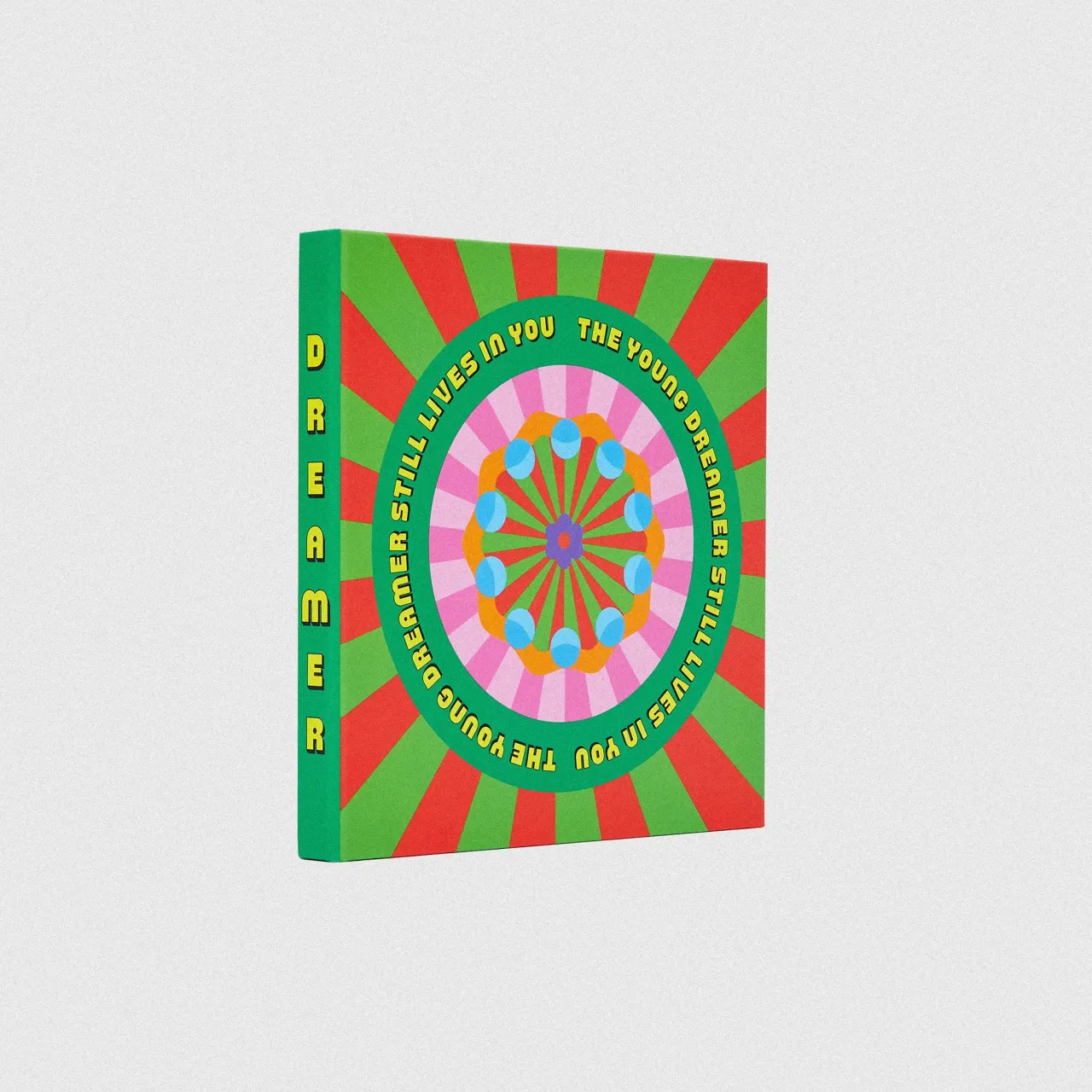
The brief for this commission called for an ownable typeface that could integrate into Yinka's existing visual language and work across various applications. The foundry was given significant creative freedom as long as the design maintained visual consistency and cohesion with Ilori's work.
The British Standard Type team relished the challenge of creating a typeface that could capture the artist's signature vibrant style and core values of inclusivity, positivity, and playfulness. Fenton says: "Yinka emphasised his desire for the typeface to tell a story, a quality intrinsic to his work.
"This resonated with us, as we are keen to explore type as a tool for conveying meaning."
The two cuts of Yinka Sans seek to mirror his passion for embracing diversity and spreading positivity through his design and were crafted to complement his bold use of colour, playful forms, and optimistic themes. "It aligns with Yinka's goal to infuse beauty, fun, and joy into the overlooked, reflecting the vibrancy and expressive nature of his visual world", says Fenton.
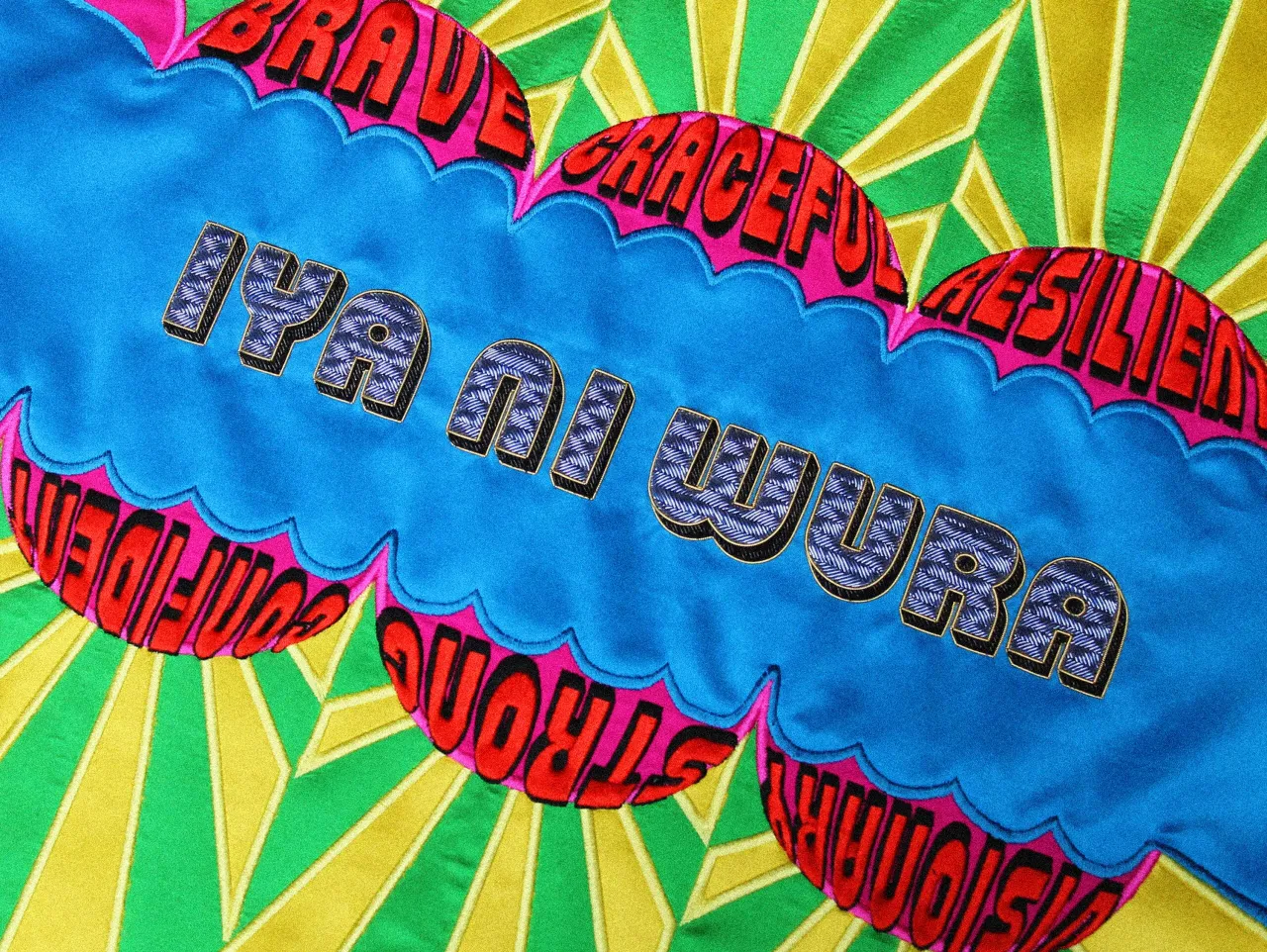
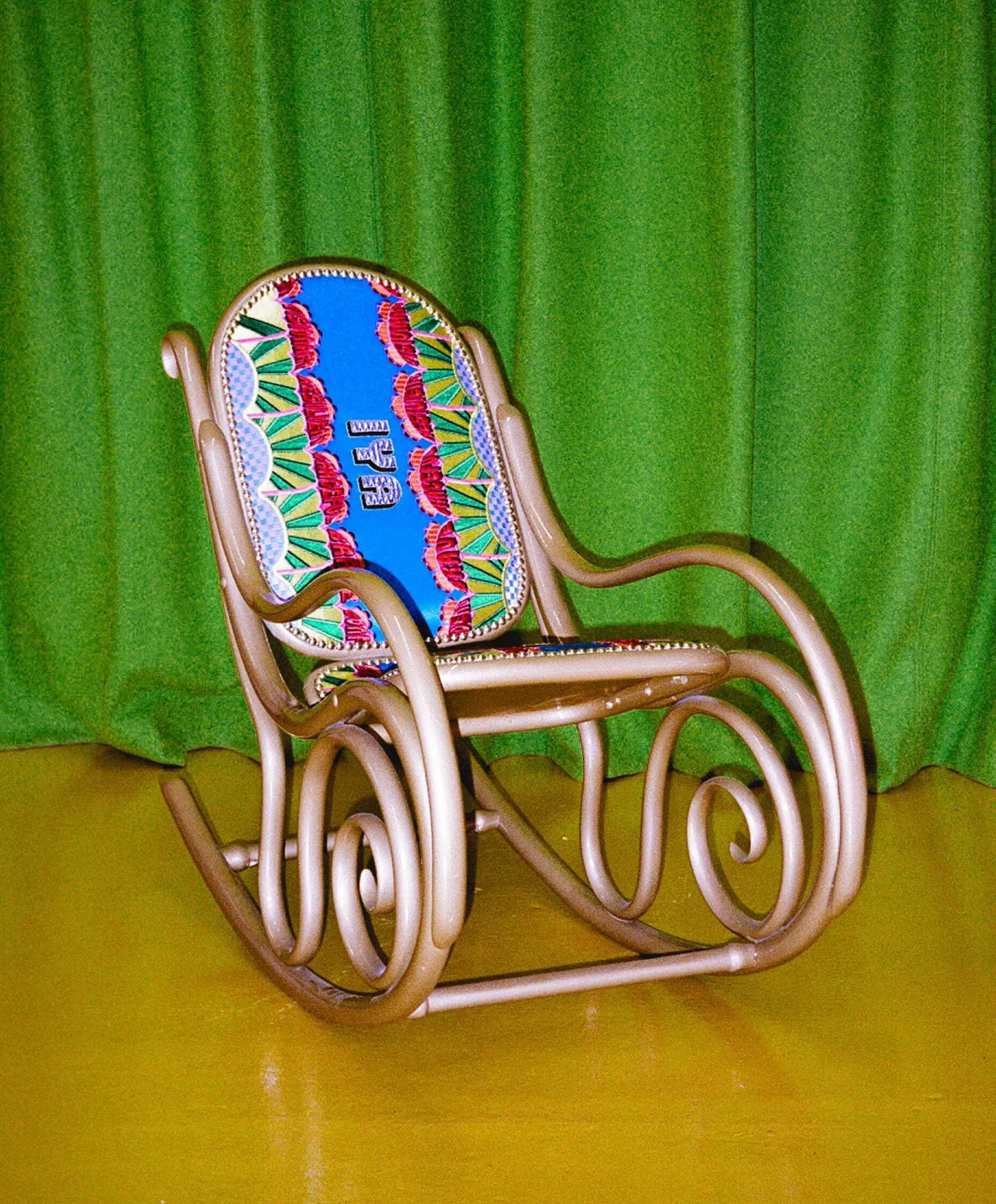
Some notable references in Ilori's work are Nigerian folk art, architectural motifs, musical culture, and contemporary popular culture. British Standard Type sought to infuse as much of this as possible into Yinka Sans, designing unusual rhythmic patterns, bold geometric gestures, and contrasting forms into the typeface.
"Inspired by Yinka's use of shadow effects, we developed Yinka Sans Shadow to add depth and dimension, enhancing the visual impact of the typography," Fenton explains. "The typeface captures a narrative of diversity and bold expression, reflecting Yinka's eclectic visual sources and his unapologetic unorthodoxy."
Yinka Sans Shadow is suitable for creating dynamic, eye-catching text with added visual complexity made available through the different stylistic sets in the typeface.
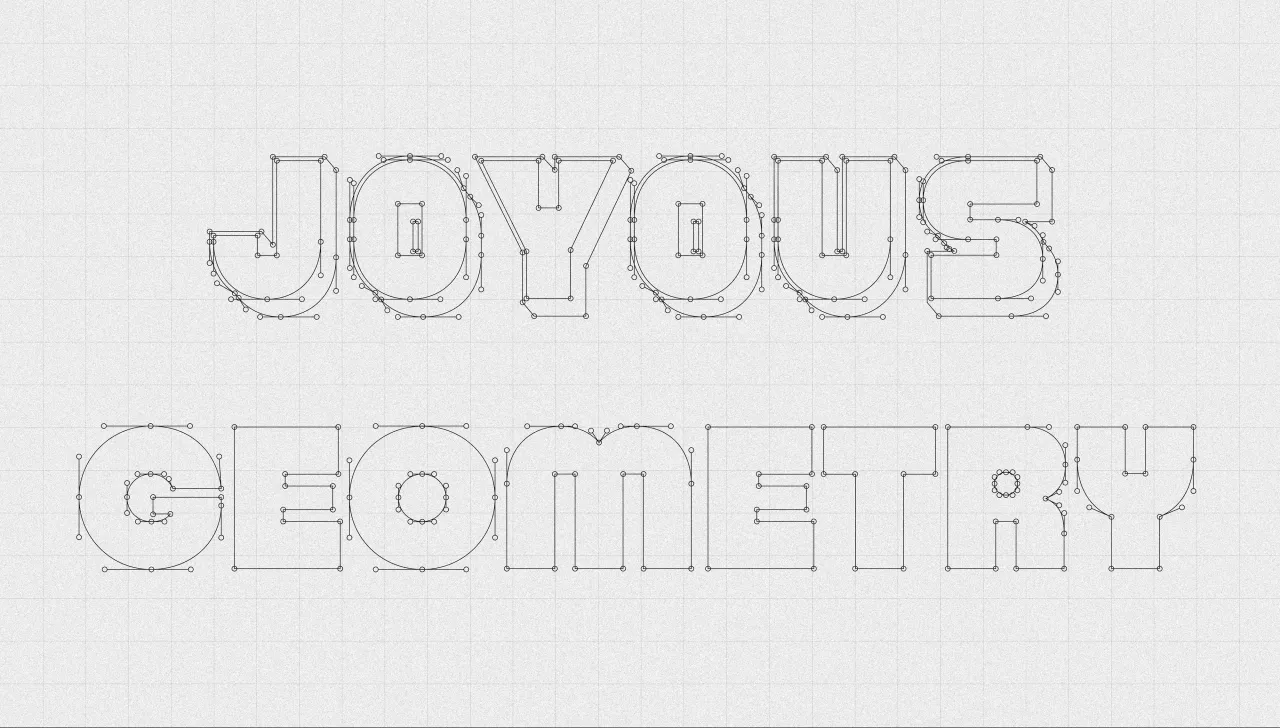
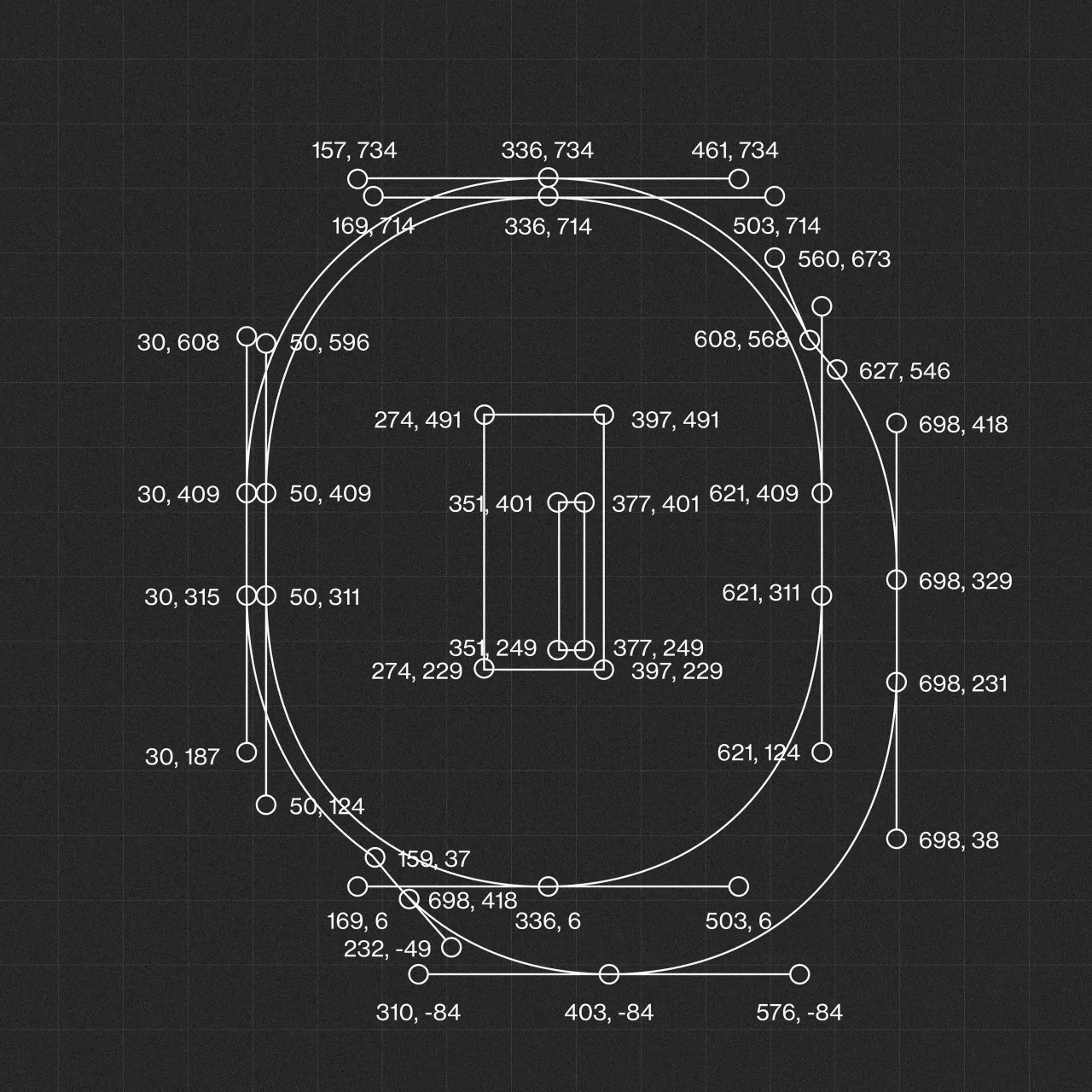
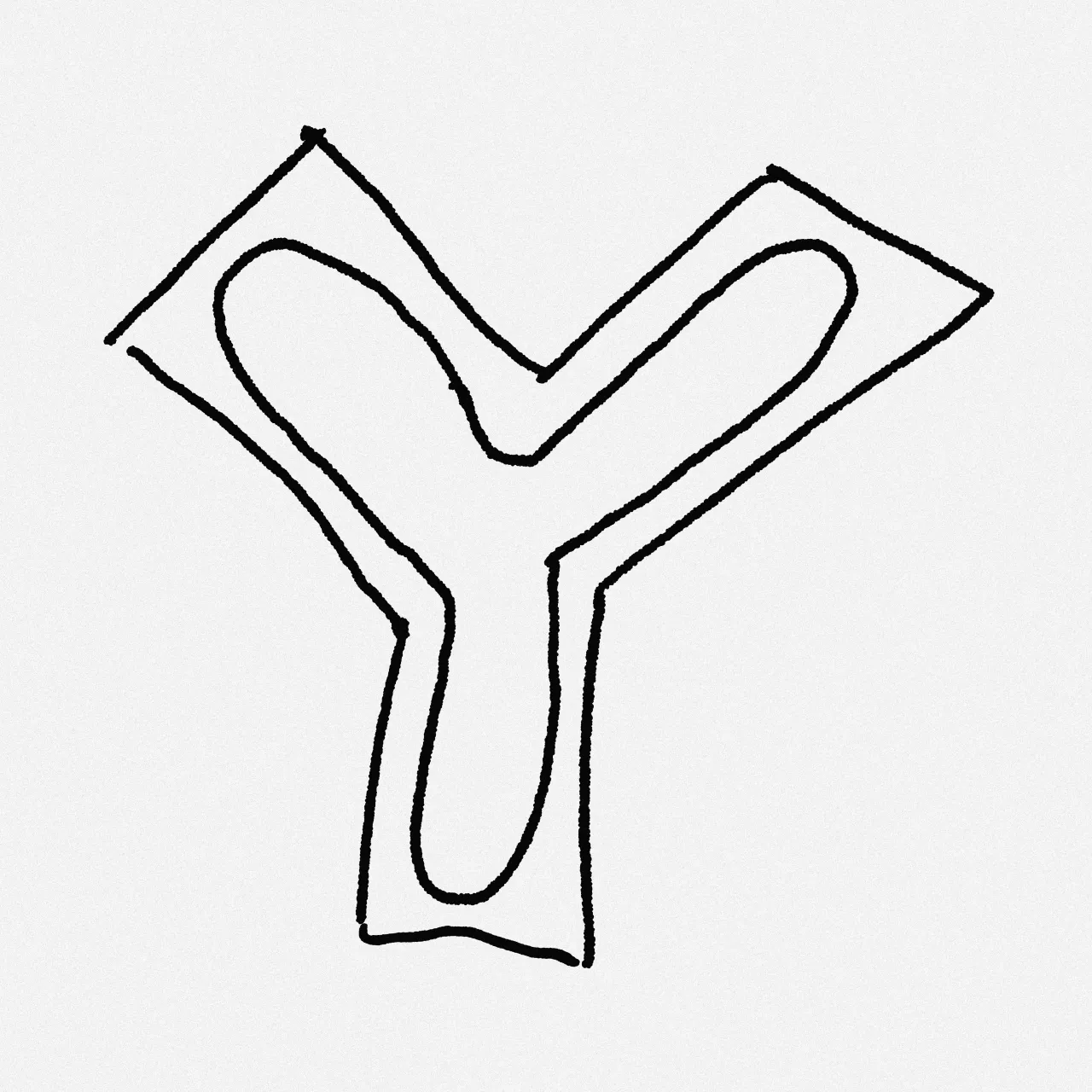
Key features of the Yinka Sans Ultra include its contrasting bold, rounded forms and straight counter forms. This cut was designed for display purposes, reflecting a sense of joy and celebration, making it ideal for large, impactful text where boldness and clarity are essential.
Since Yinka Sans Ultra and Shadow are display typefaces, Little says the design team was free from the strict legibility constraints of text typefaces, meaning there was more room for creativity. However, he adds: "We had to balance the expressive design language with functionality, ensuring readability while retaining a distinctive flair.
"It was crucial to maintain the typeface's unique character without compromising practicality, making it effective for various applications."